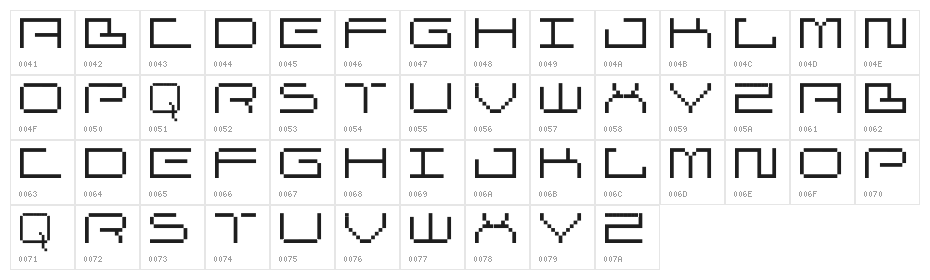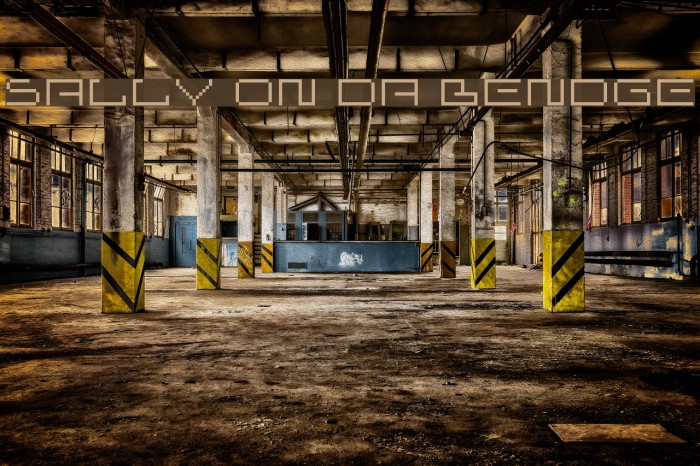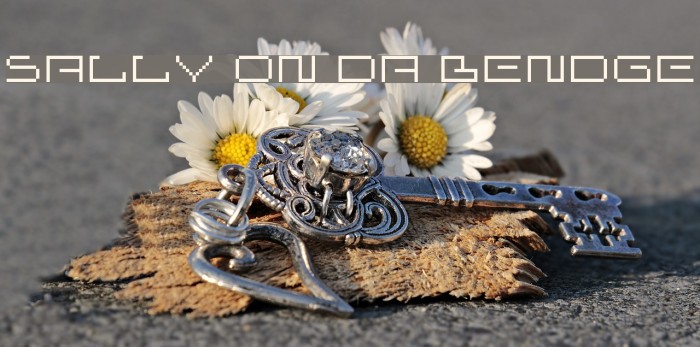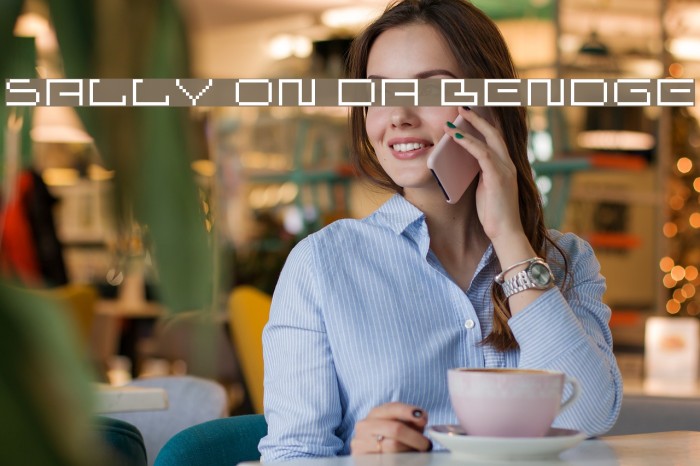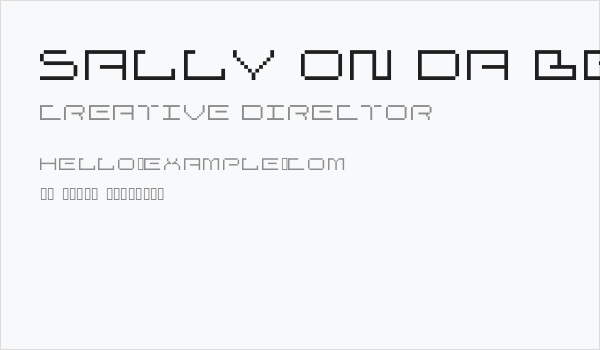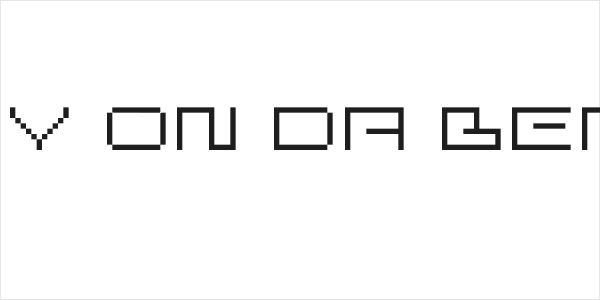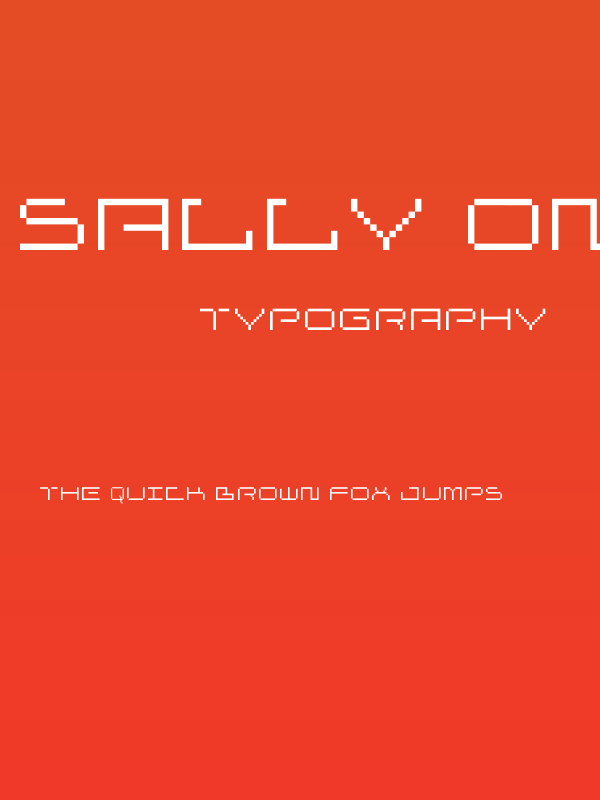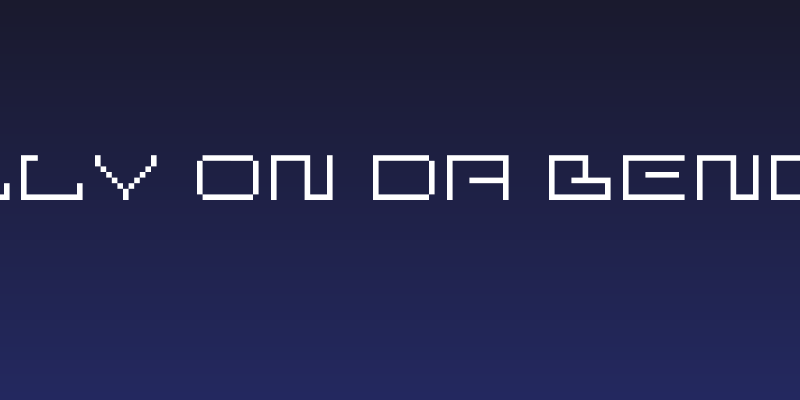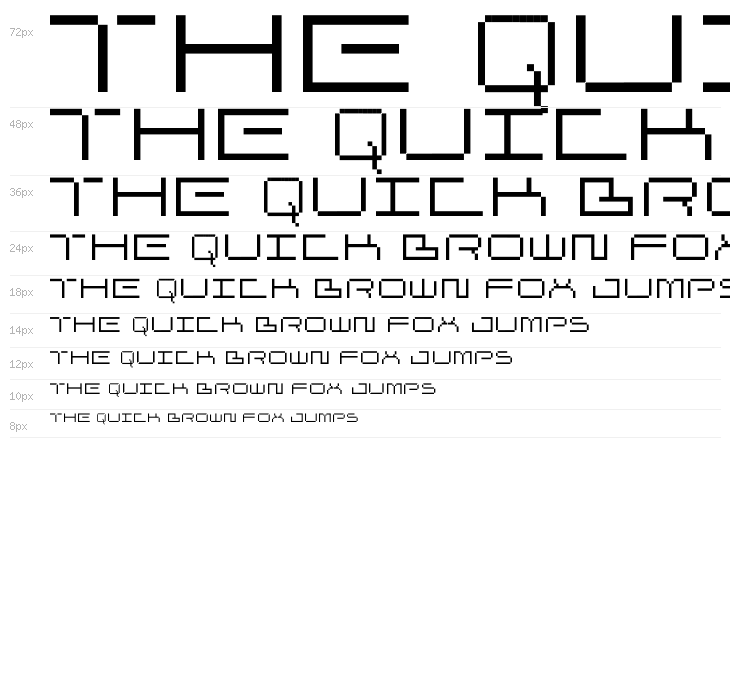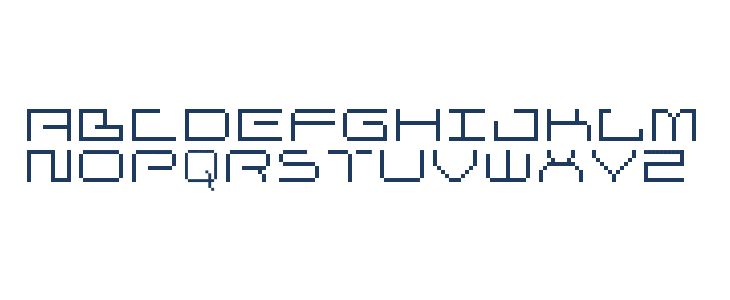
sally on da bendge Font
sally on da bendge Description
This font features a unique, modern design with a pixelated, grid-like structure. Each character is composed of small squares, creating a digital, retro aesthetic reminiscent of early computer graphics or video games. The uppercase and lowercase letters maintain a consistent height, contributing to a uniform appearance. The numerals and special characters follow the same pixelated style, ensuring cohesion across all elements. This font's distinct style makes it ideal for projects that aim to evoke a sense of nostalgia or a futuristic, tech-inspired look.
| Use Case | Logos, Headlines, Digital Art |
| Proposed Projects | Ideal for video game design, tech-themed posters, digital art projects, and retro-inspired branding. |